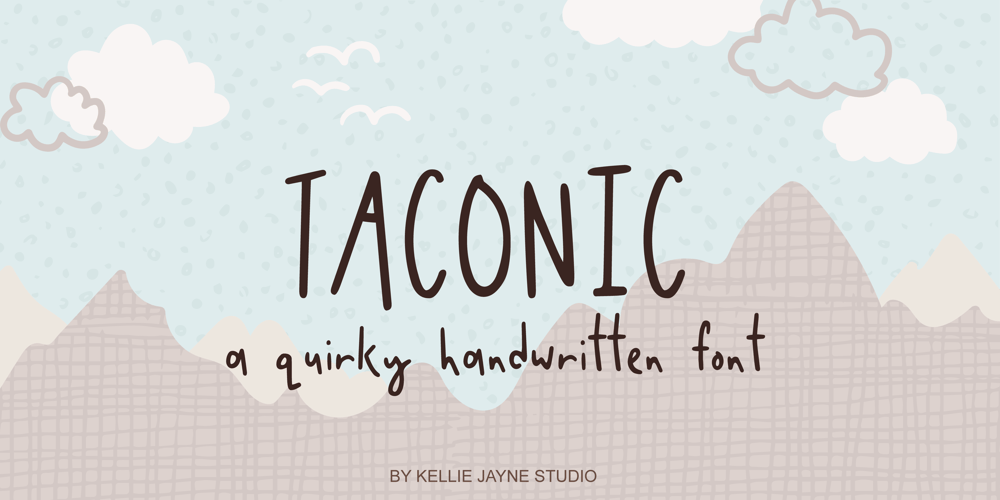
Taconic Font Family was designed by Kellie McDonald and published by Kellie Jayne Studio. Taconic contains 2 styles and family package options. Taconic Font is a quirky handwritten font with a playful feel. It was inspired by a hiking trip by the Taconic mountain range. To keep your designs fresh, Taconic features a set of stylistic alternates for both uppercase and lowercase letters, plus over 50 discretionary ligatures. It is easy to achieve a totally handwritten look with natural variations in the letterforms.This font works great for editorial designs, marketing materials, blogs, or whatever you’d like to add some handwritten pizzazz to!